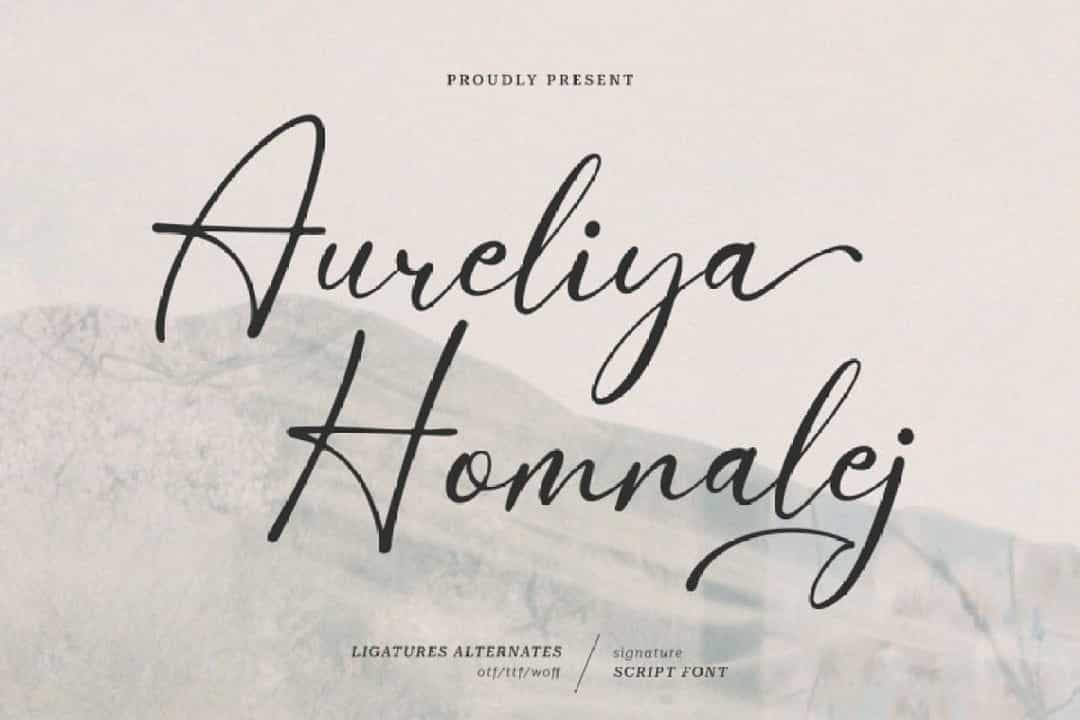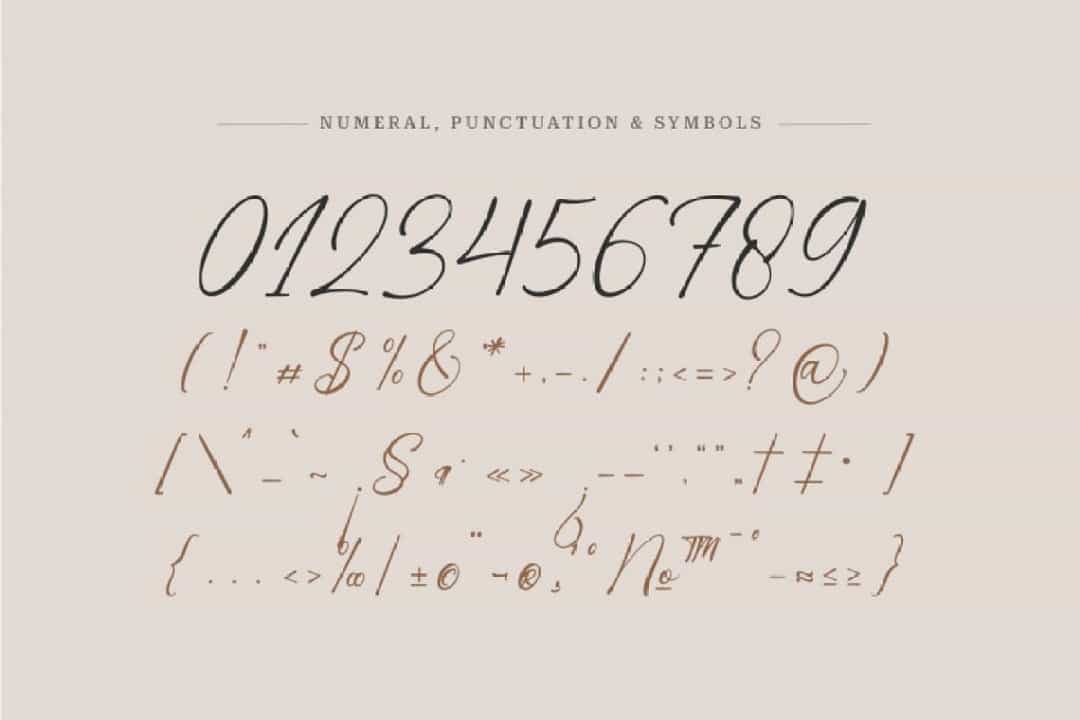
Discover Aureliya Homnalej Font, part of the Calligraphy Handwritten collection—a versatile and unique font perfect for adding a personal touch to your projects. Download it for free and enjoy crafting designs with style, from invitations to social media posts. This font is available exclusively for personal use, giving you the freedom to create without limits. Unlock your creativity with Aureliya Homnalej Font today!
Aureliya Homnalej is a stylish font that works well for various projects, like logos, brand designs, home accessories, packaging, mugs, quotations, posters, tote bags, shirts, book jackets, business cards, event invitations, greeting cards, labels, photography overlays, watermarks, for images or documents special occasions and any other creative endeavors that require a touch of elegant script style.